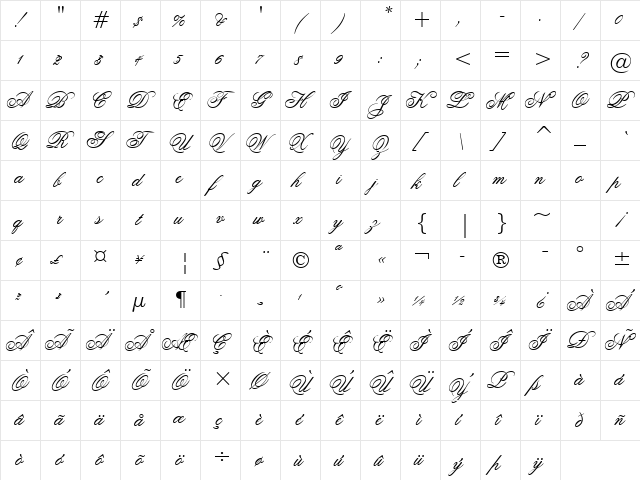
Grand Prix ES Regular
Design Context for Grand Prix ES Typeface
Grand Prix ES is a composed and adaptable typeface that performs quietly and consistently across a wide range of design contexts.